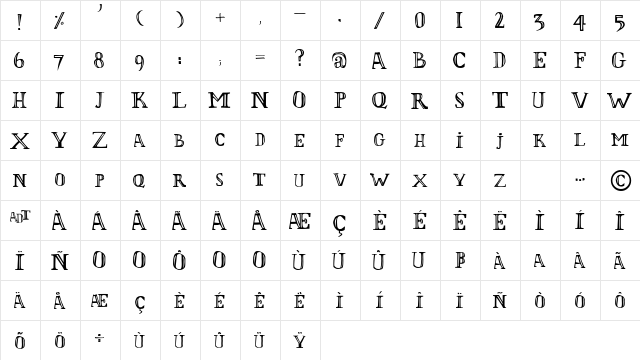
L'Olivier Regular
Design Context for L'Olivier Typeface
L'Olivier is a composed and adaptable typeface that performs quietly and consistently across a wide range of design contexts.